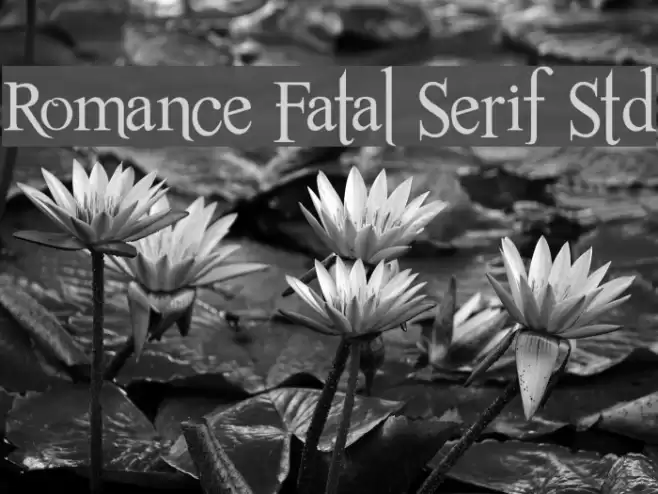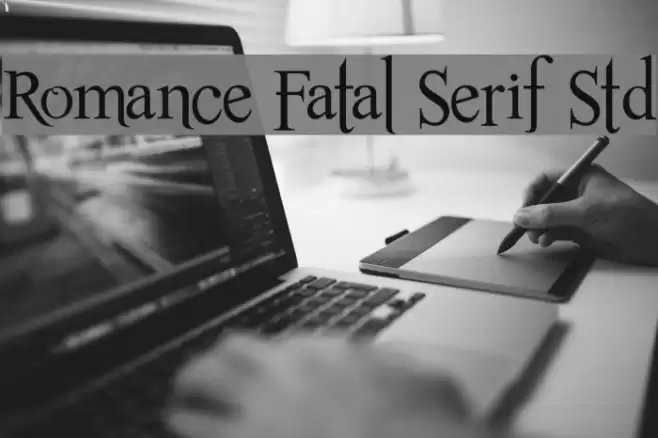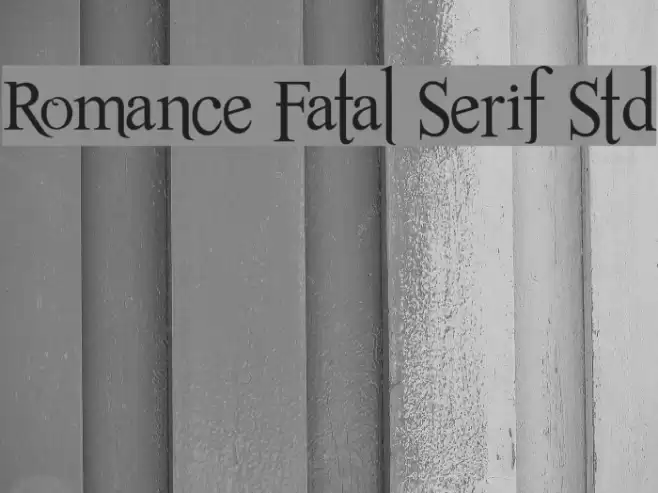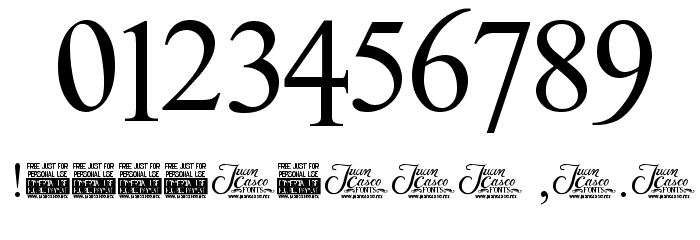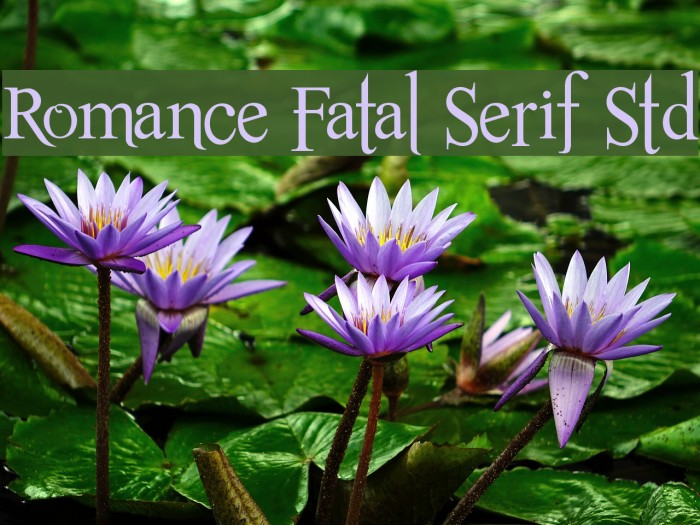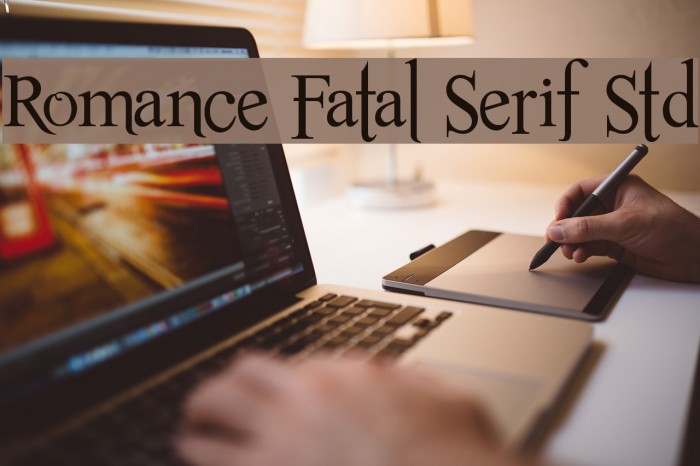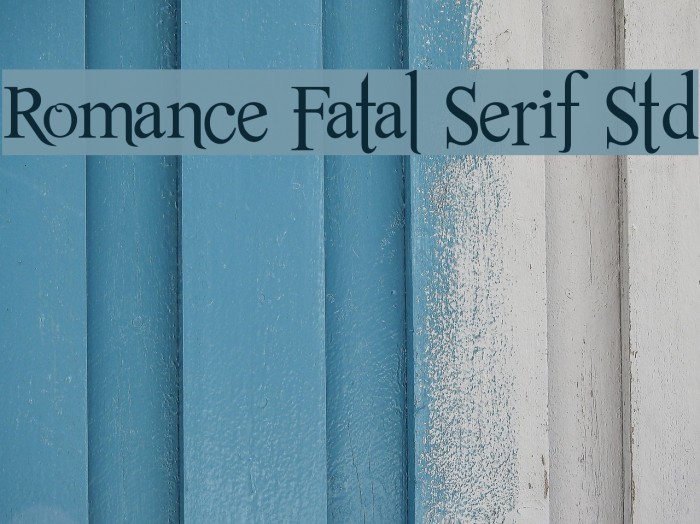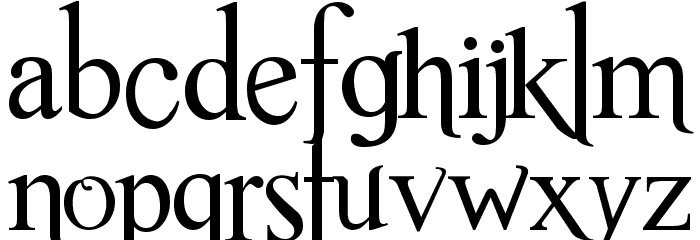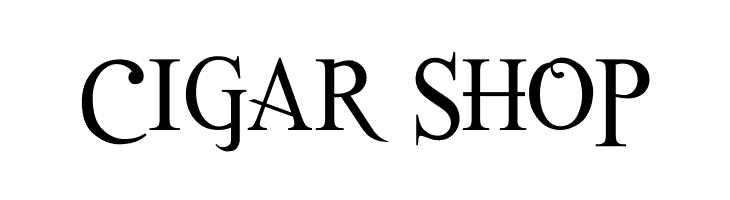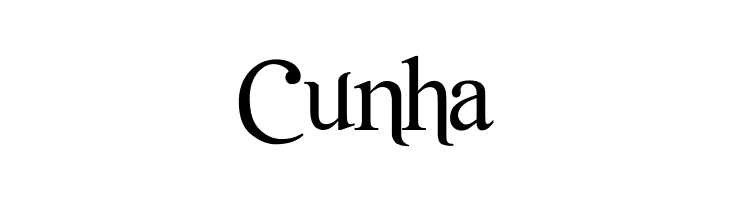
Romance Fatal Serif Std Font
Romance Fatal Serif Std Description
This font features a classic serif style with elegant, elongated strokes and a sophisticated appearance. The uppercase letters are bold and commanding, while the lowercase letters maintain a graceful flow, making it suitable for both formal and artistic applications. The numerals are clear and distinct, ensuring readability. The special characters are designed with the same attention to detail, providing a cohesive look across all glyphs. This font exudes a timeless charm, perfect for projects that require a touch of elegance and tradition.
A classic serif font with elegant, elongated strokes and a sophisticated appearance from Uncategorized fonts.
- Font: Romance Fatal Serif Std
by JuanCasco - Weight: Regular
- Proposed Projects: Ideal for wedding invitations, formal documents, book covers, and branding materials that require a touch of elegance.
- Overall Style: Classic